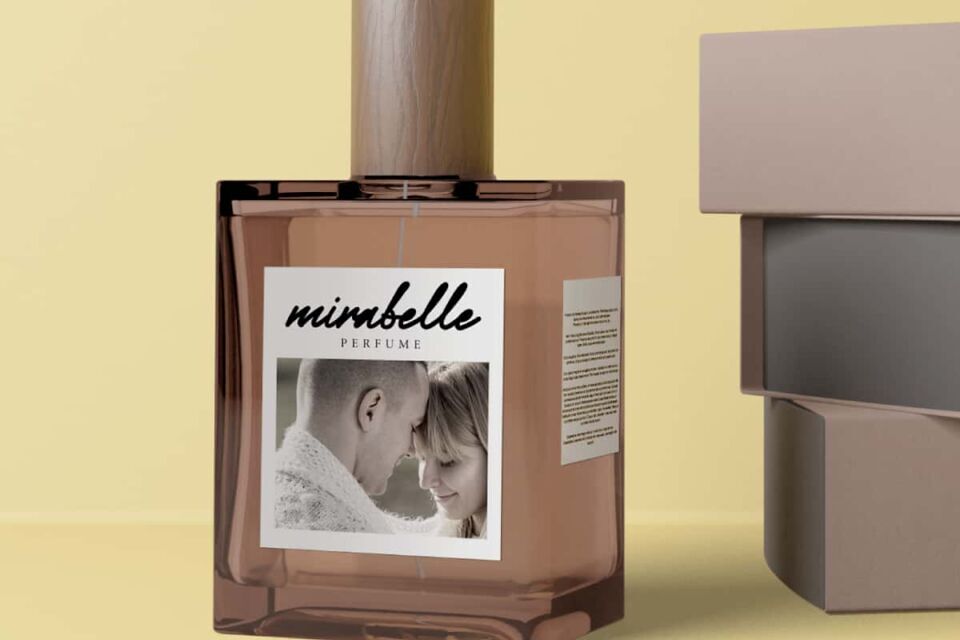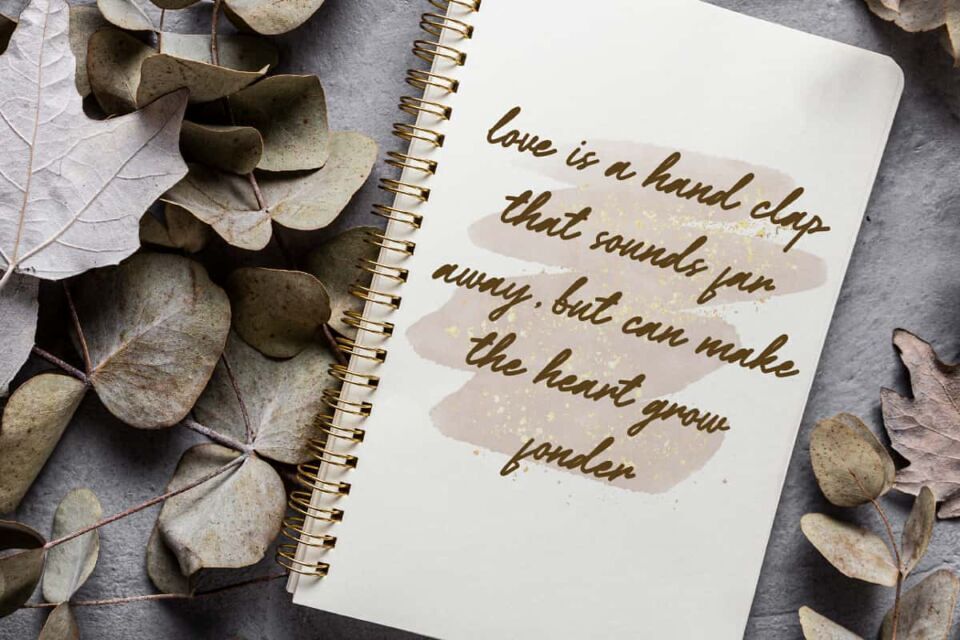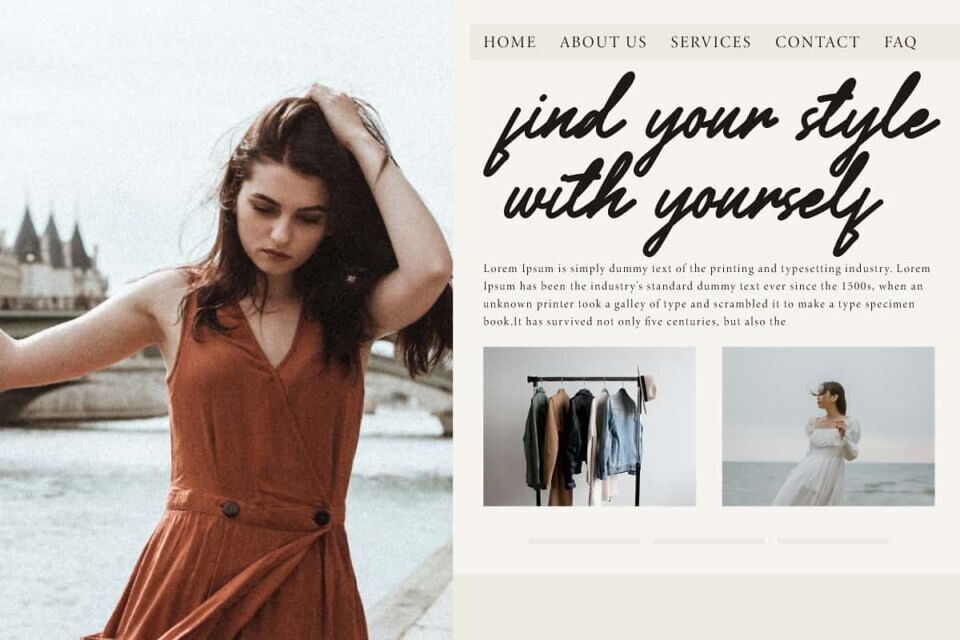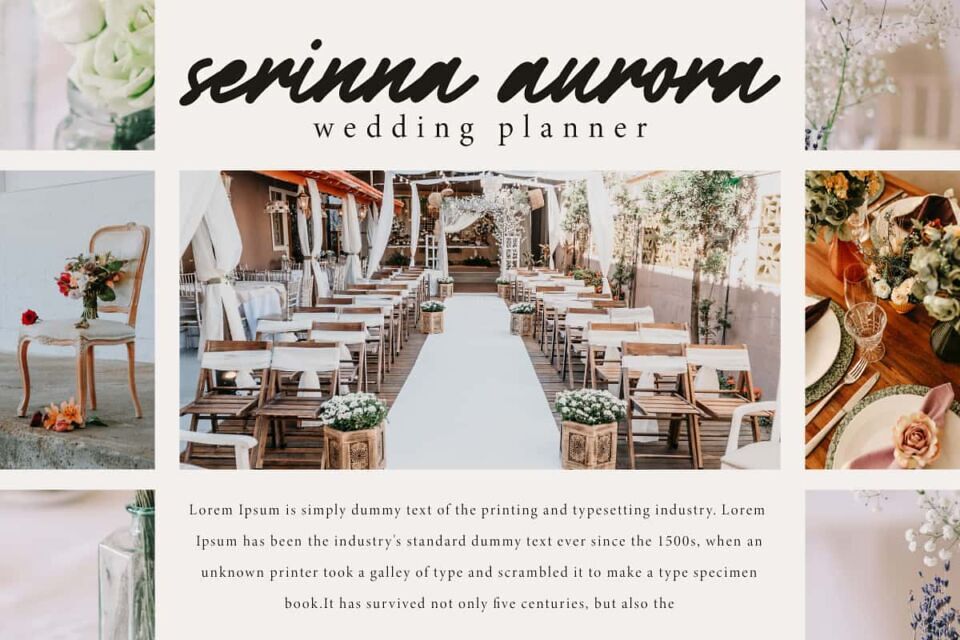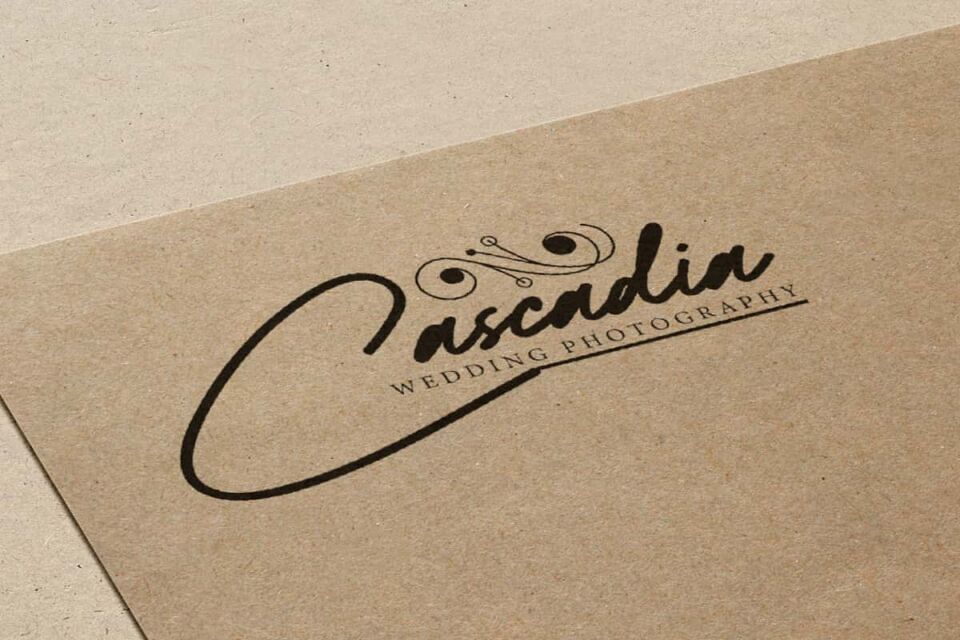
Cahaya Rembulan Font
Cahaya Rembulan Font is a modern handwriting font that is specially made with a cute yet elegant shape. That way this font can be used in any project editing material, such as banner, billboard, blogs, brand logo, card design, cover, editorial, greeting card, headers, headline, invitation, label, logo, product packaging, quotes, sticker, template, title, website, etc.
Designed by: NihStudio